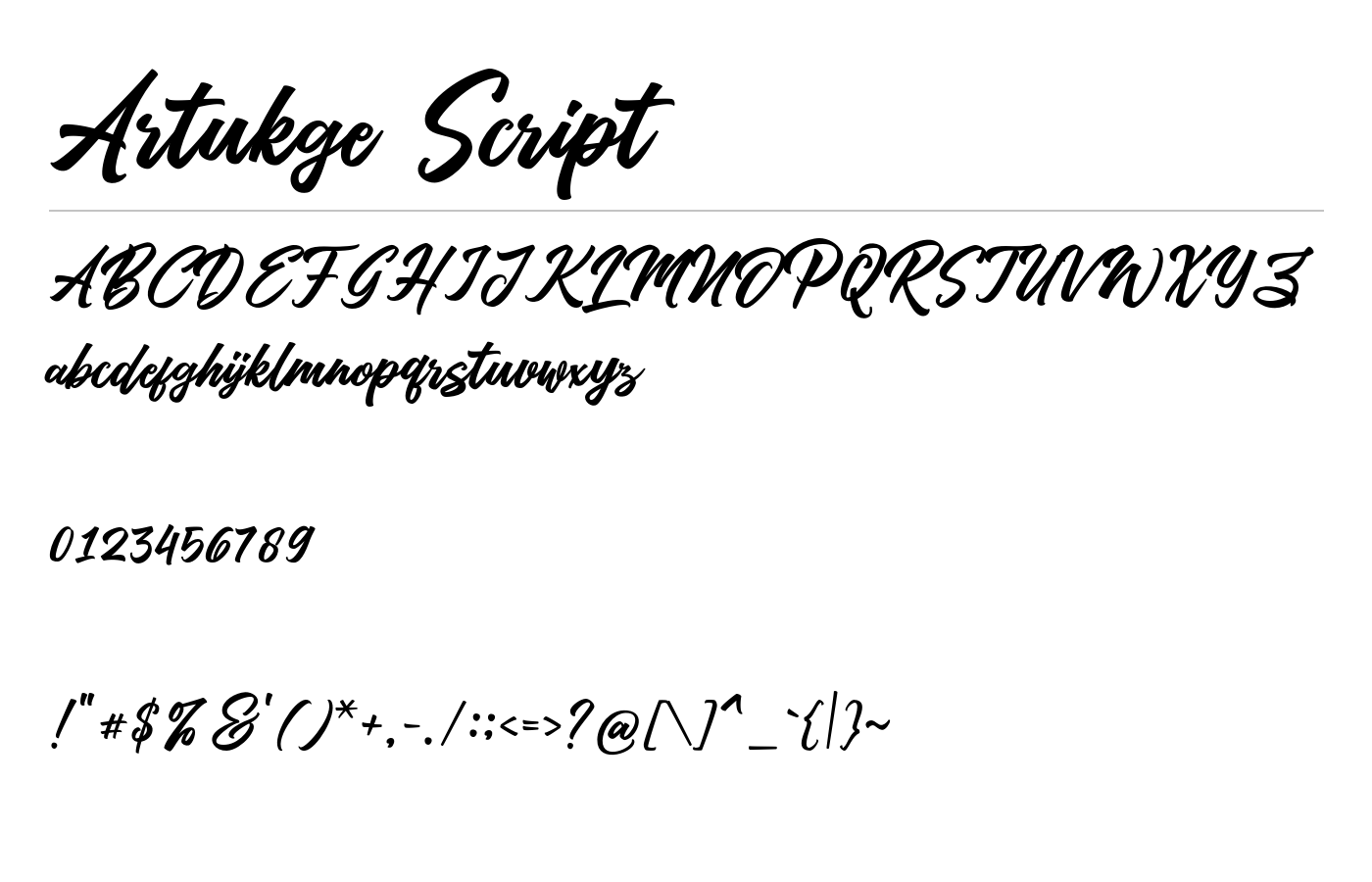
Artukge Script is a bold and elegant handwritten script font with a lively, flowing style that combines smooth curves and dynamic strokes. Its legible uppercase and lowercase letters, along with stylish numerals and punctuation, make it perfect for adding a personal, creative touch to branding, invitations, and headlines where a friendly yet refined look is desired. This font works well for fashion, creative projects, and any design seeking a warm, expressive, and eye-catching script.
Artukge Script Font
About Artukge Script Font
| Font family | Artukge Script Font |
| Designer | Tebaltipisstd_Ferdiansyah_TTS |